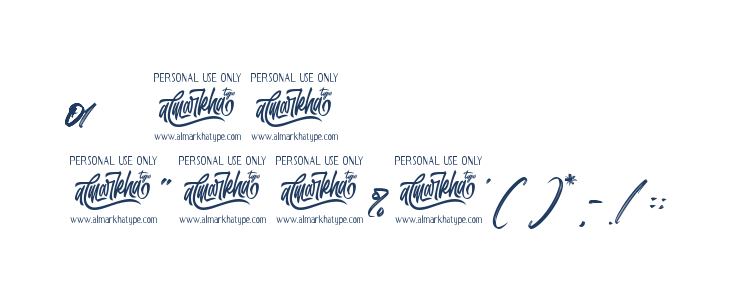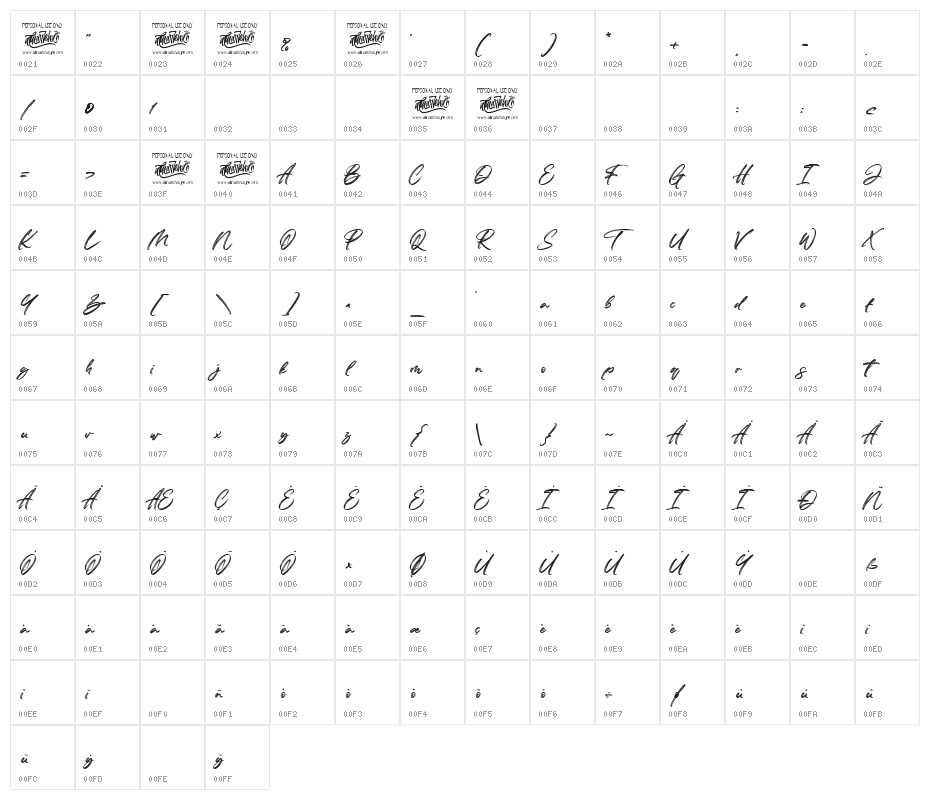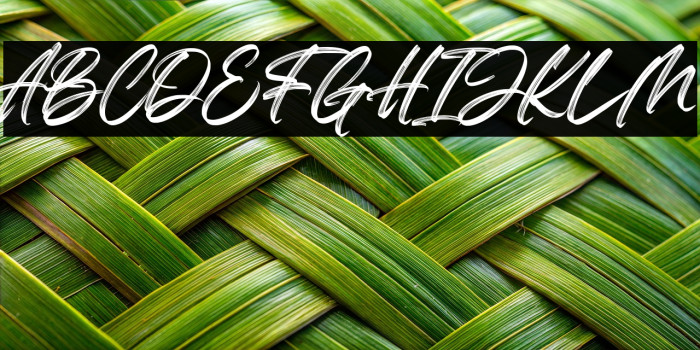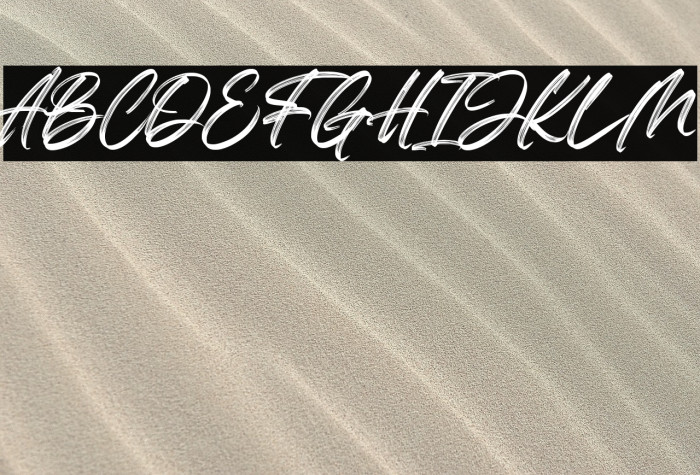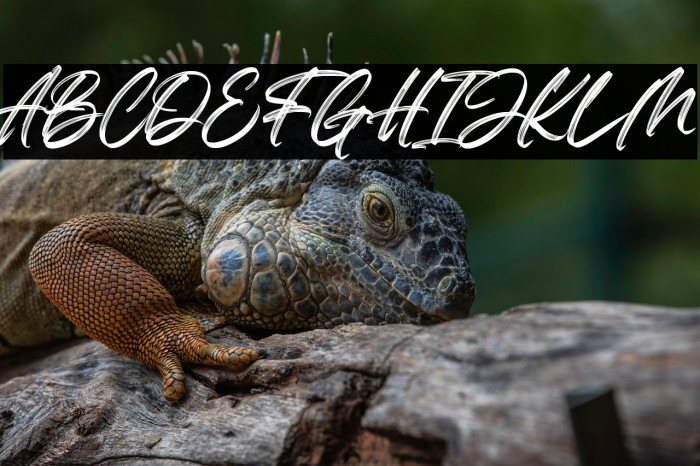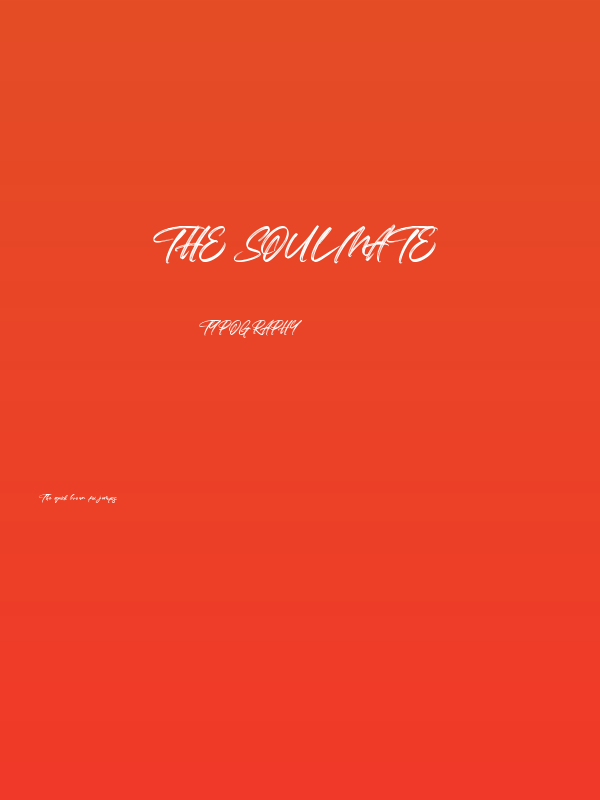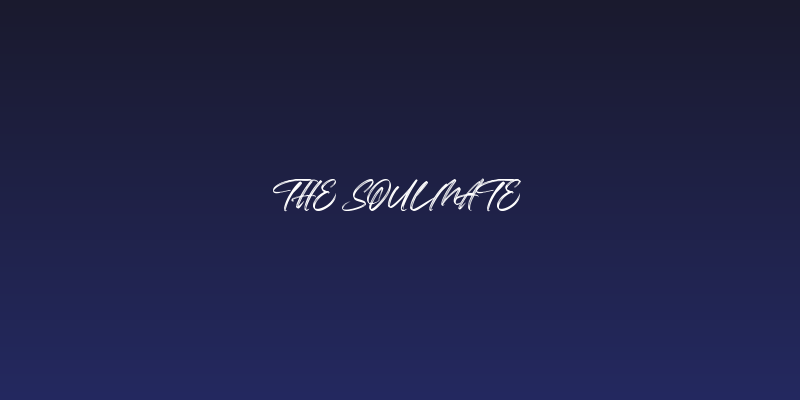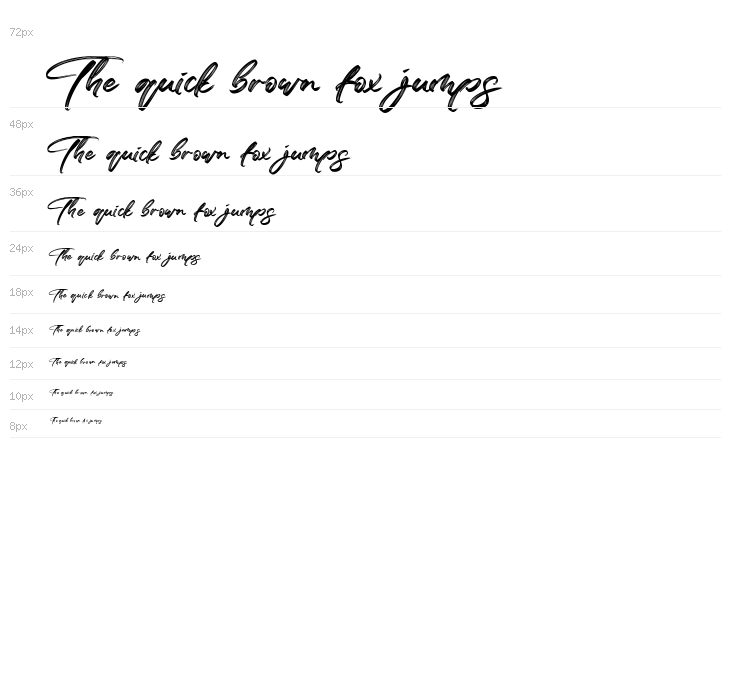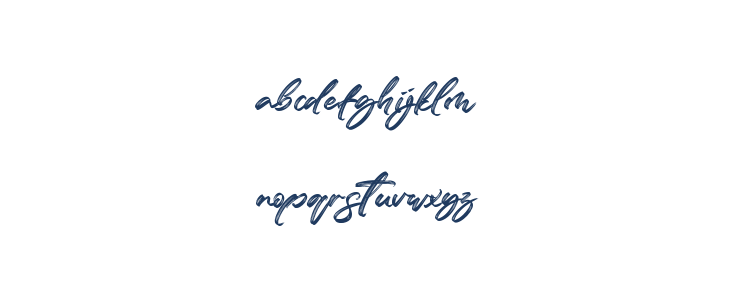
The Soulmate Font
The Soulmate Description
This font exudes a dynamic and expressive style, characterized by its fluid, handwritten appearance. The letters are crafted with a brush-like texture, giving them a lively and artistic flair. The uppercase letters are bold and sweeping, while the lowercase letters maintain a consistent flow, enhancing the font's overall elegance. The numerals and special characters are designed with the same attention to detail, ensuring a cohesive look across all elements. This font is perfect for projects that require a personal touch, such as invitations, greeting cards, or branding materials that aim to convey creativity and individuality.
Use CaseLogos, Headlines, Invitations
Proposed ProjectsIdeal for invitations, greeting cards, branding materials, and any project requiring a personal, artistic touch.